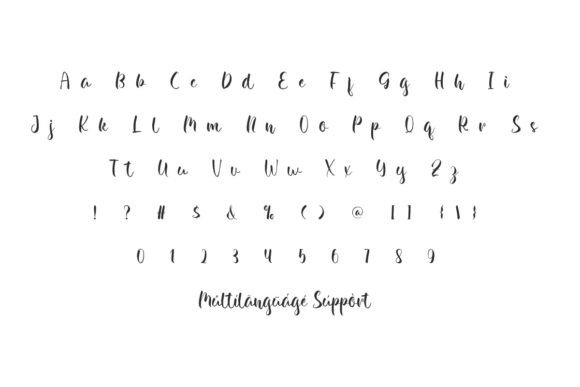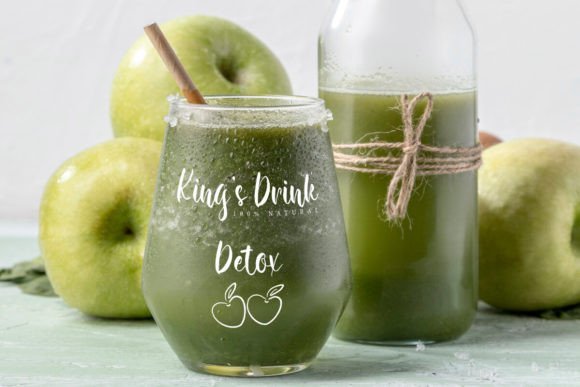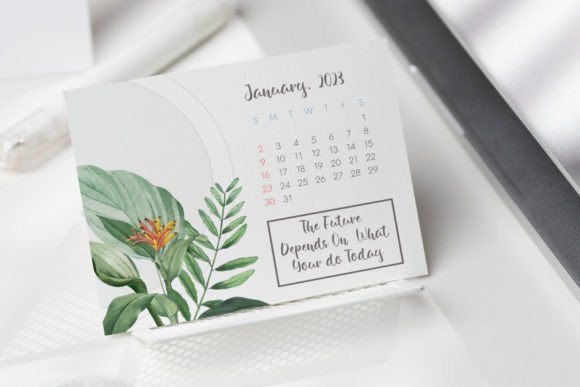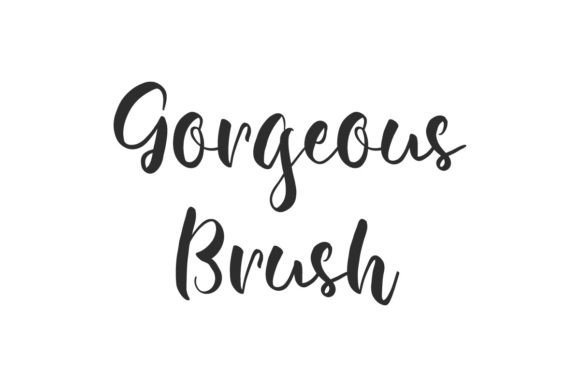
The Brush Stroke of Creativity
As a designer, there’s no feeling quite like the rush of inspiration that hits when you’re brainstorming a new project. You’re scrolling through social media, flipping through design blogs, and suddenly, an idea strikes. You envision a beautiful, handwritten logo that screams elegance and sophistication. You can almost feel the strokes of the brush dancing across the page.
This is where Gorgeous Brush Font comes in – a stunning calligraphy script font that perfectly captures the essence of hand-painted beauty. With its expertly crafted balance of thick and thin brushes, this font is the perfect tool for designers looking to add a touch of whimsy and personality to their designs. Whether you’re creating a brand logo, a calendar, or a menu, Gorgeous Brush Font will give your work a stylish, one-of-a-kind look.
Gorgeous Brush Font Key Features
• Character Set: This font features a comprehensive character set, including uppercase and lowercase letters, numbers, and punctuation marks, making it suitable for a wide range of applications.
• Unique Brush Stroke Effect: The Gorgeous Brush Font boasts a distinctive brush stroke effect, adding a touch of elegance and sophistication to any design.
• High-Resolution Graphics: The font is designed to work well at high resolutions, ensuring crisp and clear text, even at large sizes.
Review of Gorgeous Brush Font
Overall, I think Gorgeous Brush Font is a decent choice for designers looking for a unique, hand-drawn feel. Here are some things that work well:
• ✨ Beautiful, organic feel: The font’s brushstrokes and irregularities give it a charming, human touch.
• ✨ Wide language support: I was able to test the font with several languages, and it rendered well in each one.
• ✨ Easy to use: The font comes in a variety of weights and styles, making it easy to find the right one for your project.
• ⚠️ Limited legibility: While the font looks great on a large scale, it can be difficult to read at smaller sizes.
• ⚠️ Not ideal for body text: Due to its decorative nature, Gorgeous Brush Font is better suited for headlines or titles rather than body text.
• ⚠️ Some letterforms are inconsistent: I noticed some inconsistencies in the letterforms, which can be distracting in certain contexts.
Overall, I’d give Gorgeous Brush Font 3.5 out of 5 stars. While it’s a great choice for certain projects, it’s not a one-size-fits-all solution. With some careful planning and consideration of its limitations, it can be a great addition to your design toolkit.
Gorgeous Brush Font is perfect for:
• Creatives and designers looking for a unique, handwritten font.
• Businesses wanting to add a touch of elegance to their branding materials.
• Bloggers and writers seeking a font that adds personality to their content.